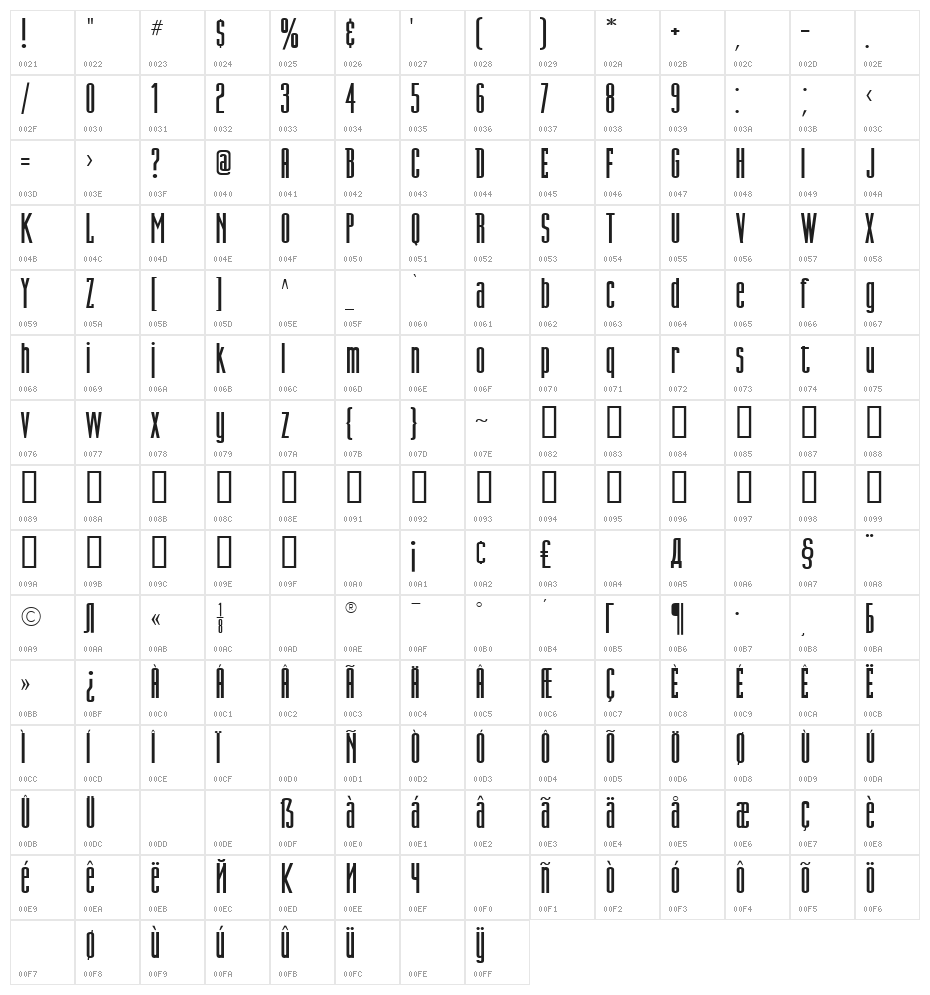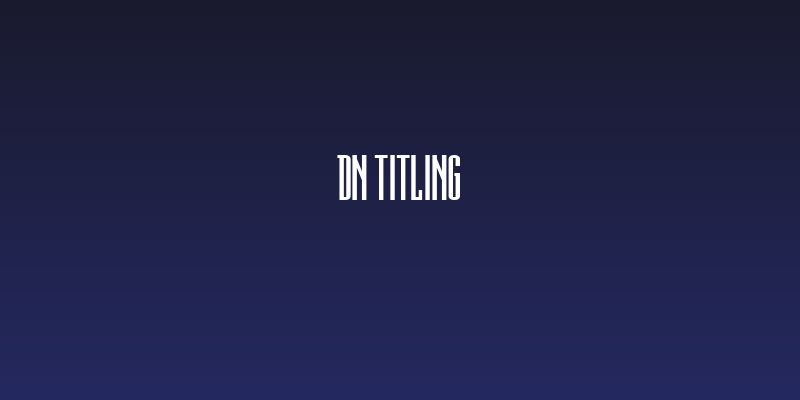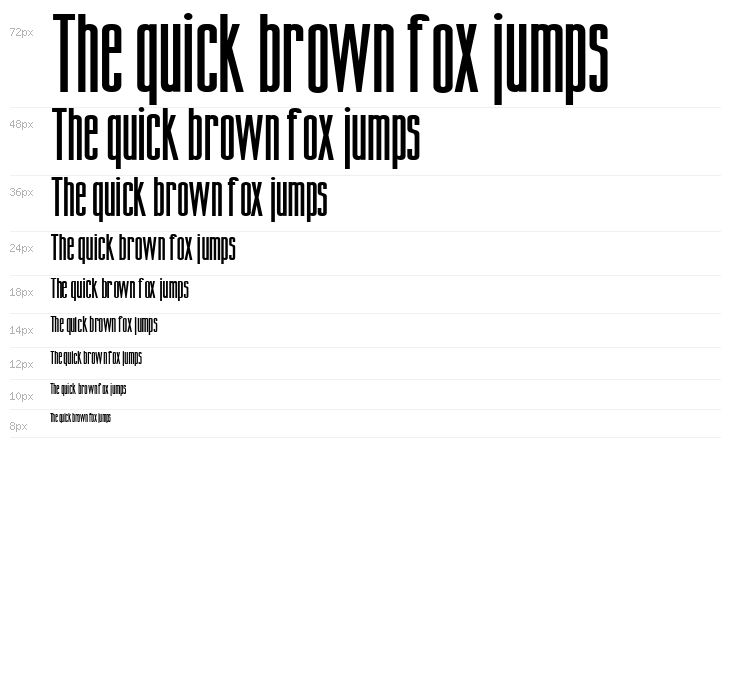
DN Titling Font
DN Titling Description
This font features a tall, narrow design with a strong vertical emphasis, creating a striking and modern appearance. The uppercase letters are particularly elongated, giving a sense of height and elegance. The lowercase letters maintain this verticality, ensuring consistency across the typeface. The numbers are similarly styled, with a uniform height that complements the overall design. Special characters are included, matching the font's sleek and contemporary aesthetic. The clean lines and minimalistic approach make it suitable for a variety of design applications.
Proposed ProjectsIdeal for headlines, posters, and branding projects where a bold statement is needed.